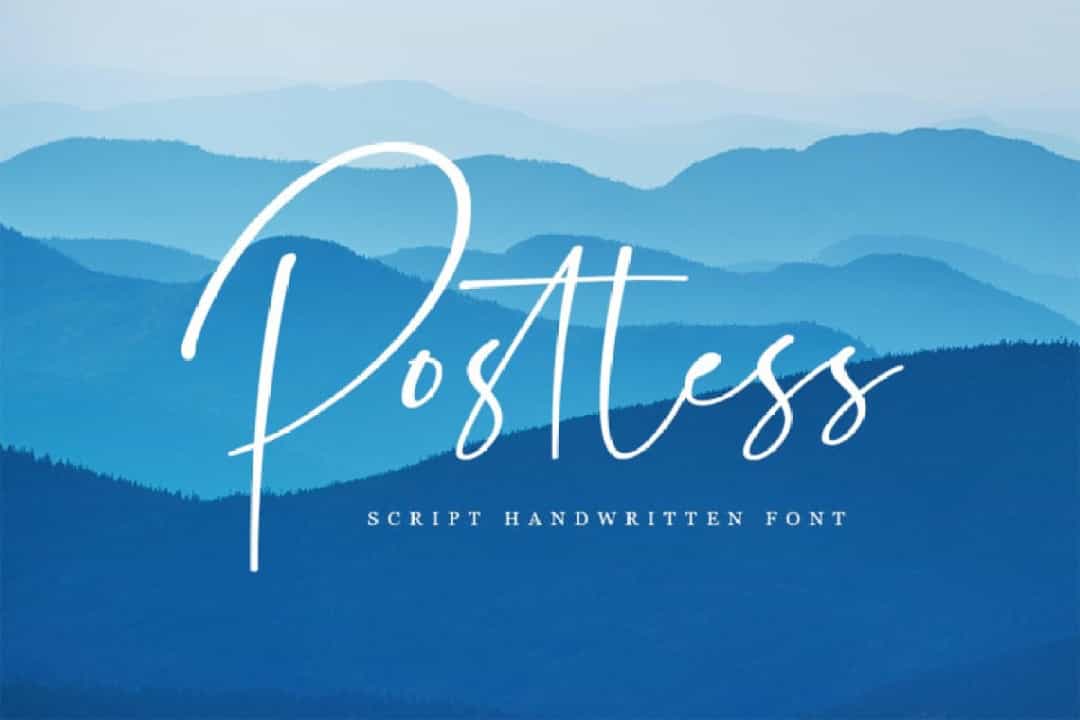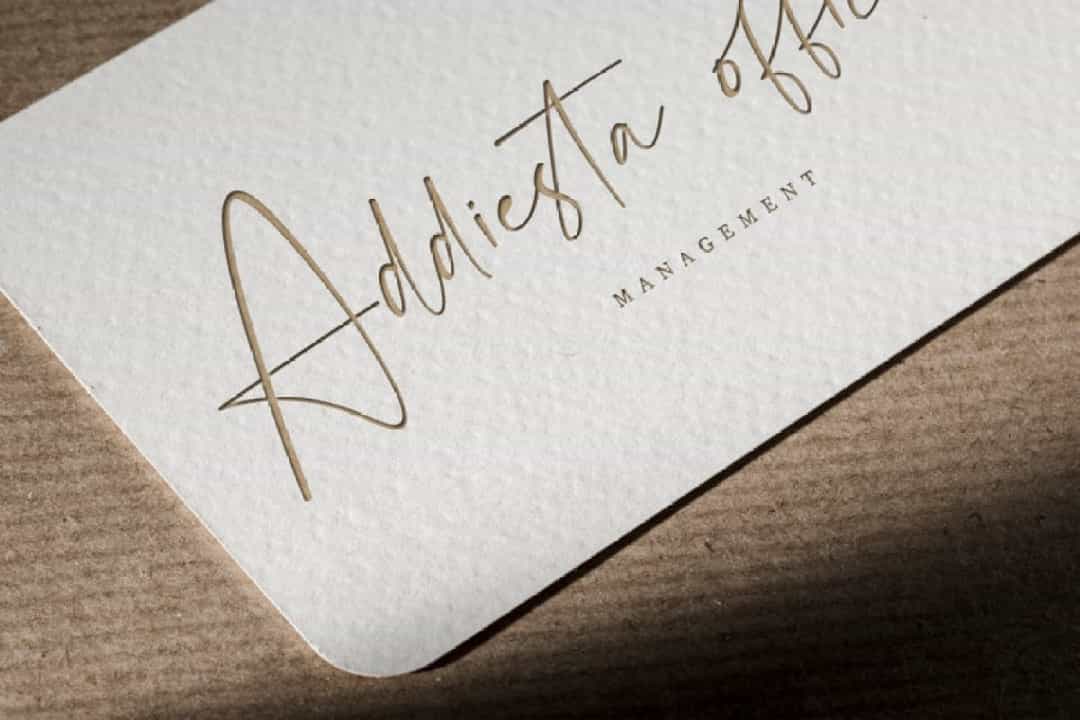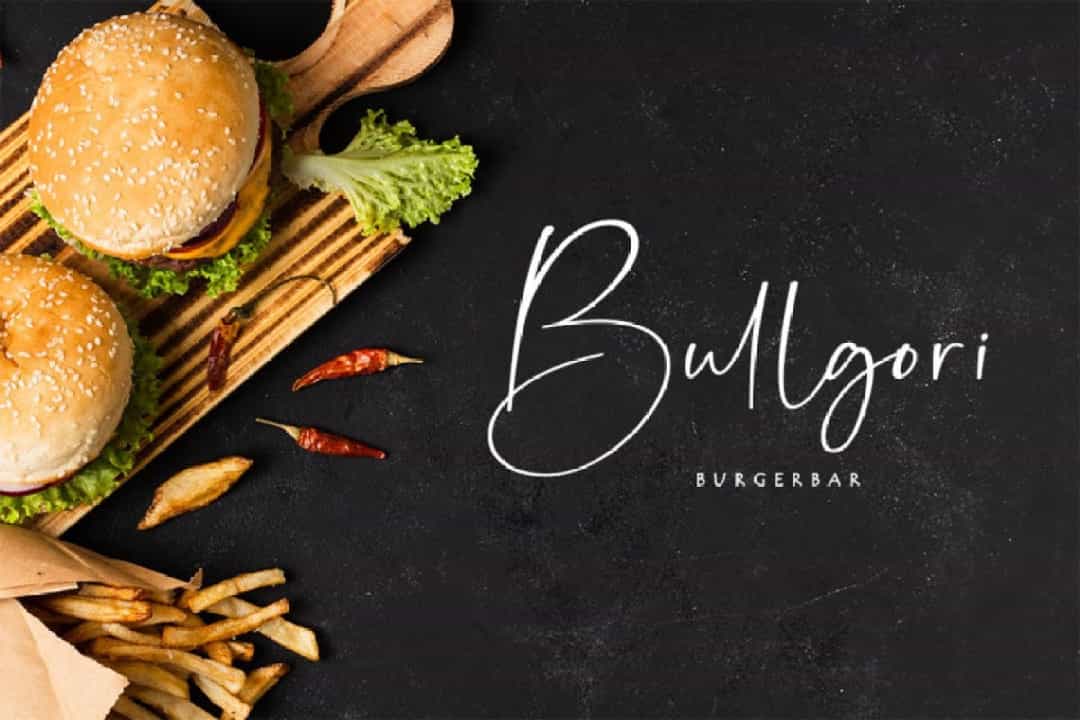
Postless is an elegant handwritten signature script font with a light weight that adds glamour and romance to your layouts. Perfect as either a headline font or display font. Logotype Wedding Logo, Fashion Logotype Wedding, Branded Books T-shirts Instagram posts are among many uses that this font is perfect for.